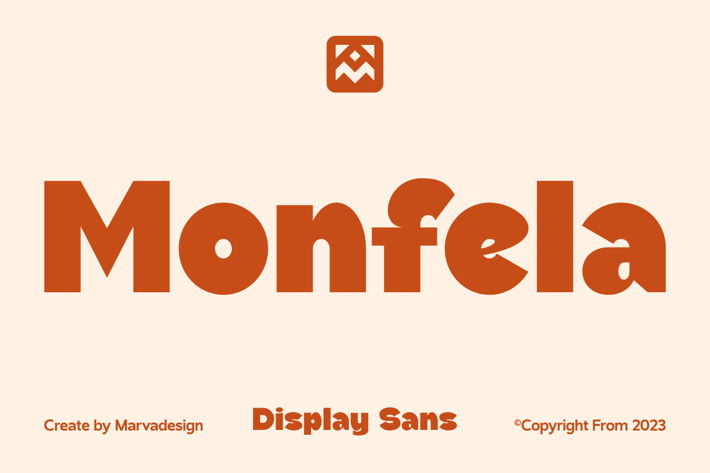
Monfela - A Modern Sans Serif Font
Introducing our new product Monfela Font - A Modern Sans Serif Font
Monfela Font - A Modern Sans Serif Font is a bold and authentic display font. The font is suitable for any branding project like logo, Template Design, Product and many more. outstanding in a wide range of contexts.